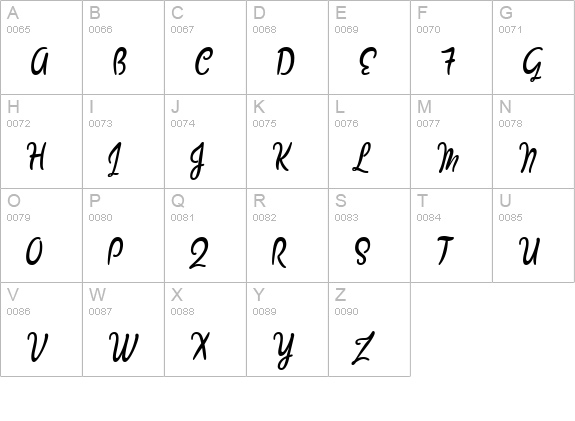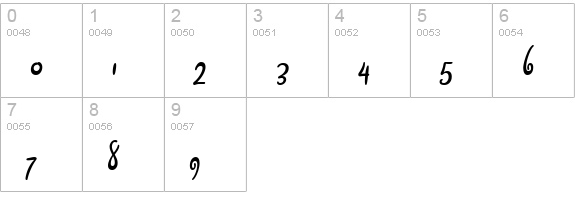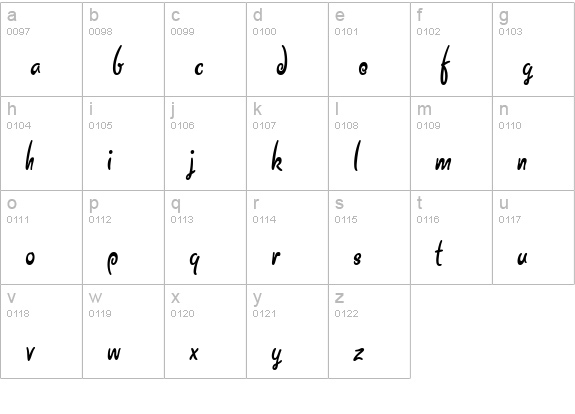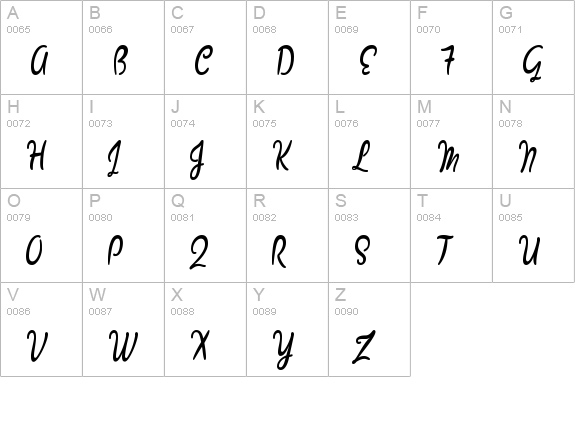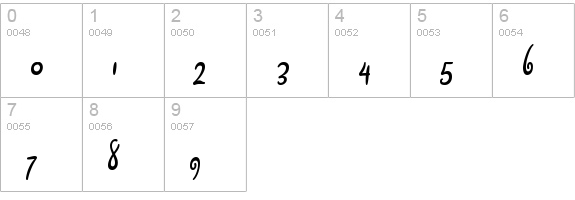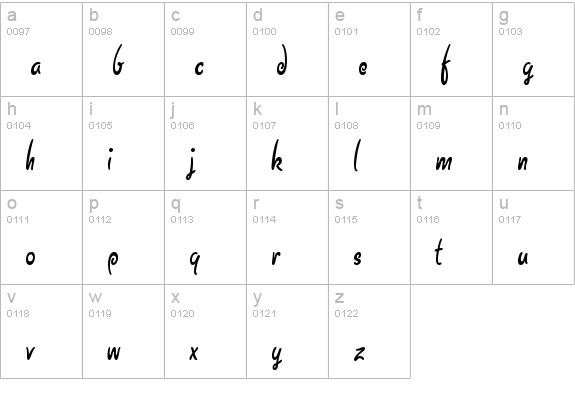
Barrista Font Details
Introducing Barrista font, a delightful and versatile typeface that effortlessly blends elegance with a touch of playfulness. The Barrista font exudes charm and sophistication, making it perfect for a wide range of design projects. Its unique letterforms and stylish curves will add a touch of flair to any branding, packaging, or editorial design. What's even better is that Barrista font is available for free download at FontsMarket.com! Yes, you read that right - you can get your hands on this stunning font without spending a dime. Whether you're a seasoned designer looking to add a fresh font to your collection or a beginner exploring typography for the first time, Barrista font is a must-have addition to your toolkit. So why wait? Head over to FontsMarket.com now and download Barrista font to elevate your designs and captivate your audience with its beauty and versatility.